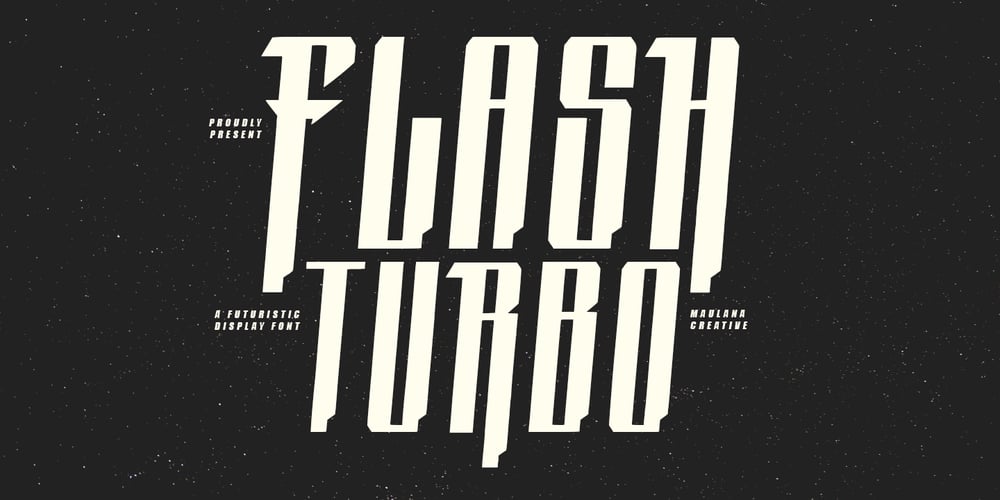
MC Flash Turbo Font Family was designed by Gilang Maulana and published by Maulana Creative. MC Flash Turbo contains 1 styles and family package options. Flash Turbo futuristic display font racing speed. With speed stroke, fun character with special alternates to give you an extra awesome creative work. Flash Turbo futuristic display font support a multilingual language. This font is good for logo design, Social media, Movie Titles, Books Titles, a short text even a long text letter and good for your secondary text font with script or serif. Make a stunning work with Flash Turbo futuristic display font racing speed.Cheers,Maulana Creative